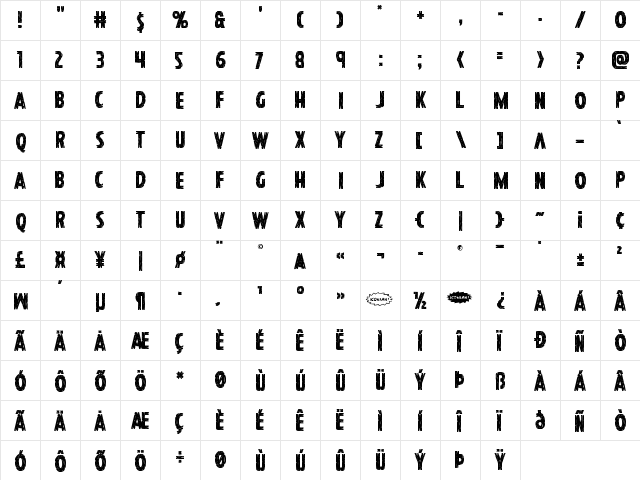
Hanging Tree Regular
Design Context for Hanging Tree Typeface
Hanging Tree is a composed and adaptable typeface that performs quietly and consistently across a wide range of design contexts.